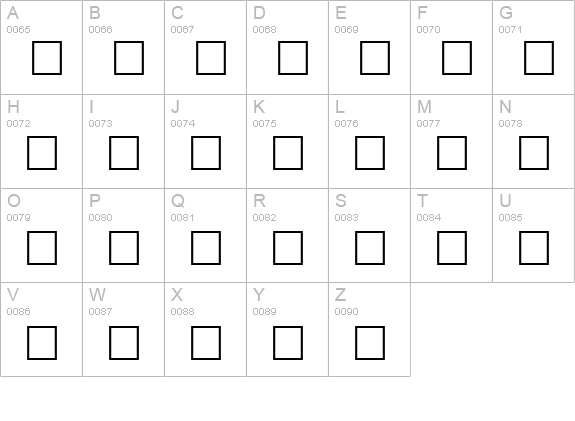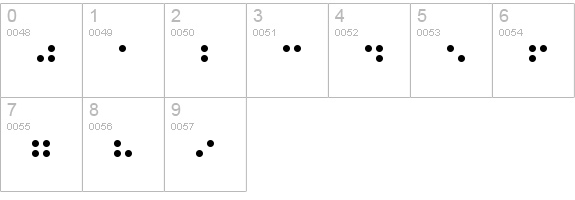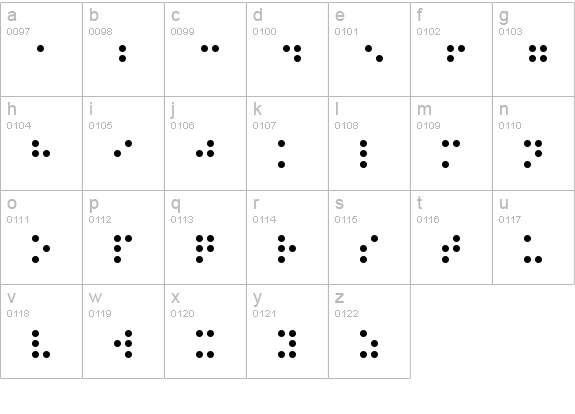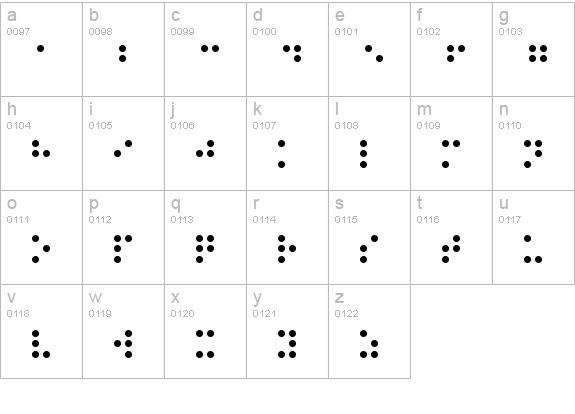
Braille Font Details
The Braille font is a unique and essential typeface designed to cater to the needs of the visually impaired community. This specialized font is created with raised dots, following the standard Braille system, allowing users to read and write in a tactile way. With its clear and distinct characters, the Braille font ensures easy readability and accessibility for those who rely on this system for communication. This Braille font is not only functional but also aesthetically pleasing, making it a versatile choice for various design projects and materials. Whether used in educational materials, signage, or communication tools, the Braille font stands out for its simplicity and practicality. Best of all, the Braille font is freely available to download at FontsMarket.com, ensuring that it can be easily accessed and utilized by designers, educators, and individuals looking to create inclusive and accessible content. Download the Braille font today and make your designs more inclusive and accessible to all.